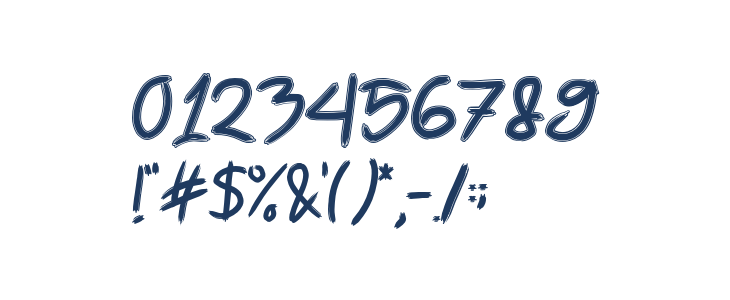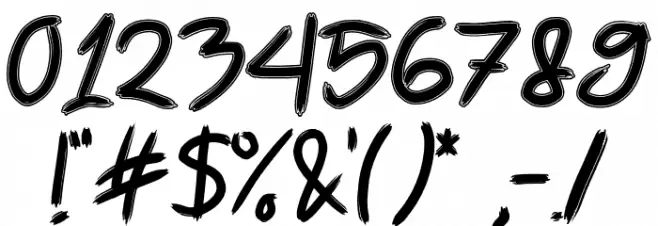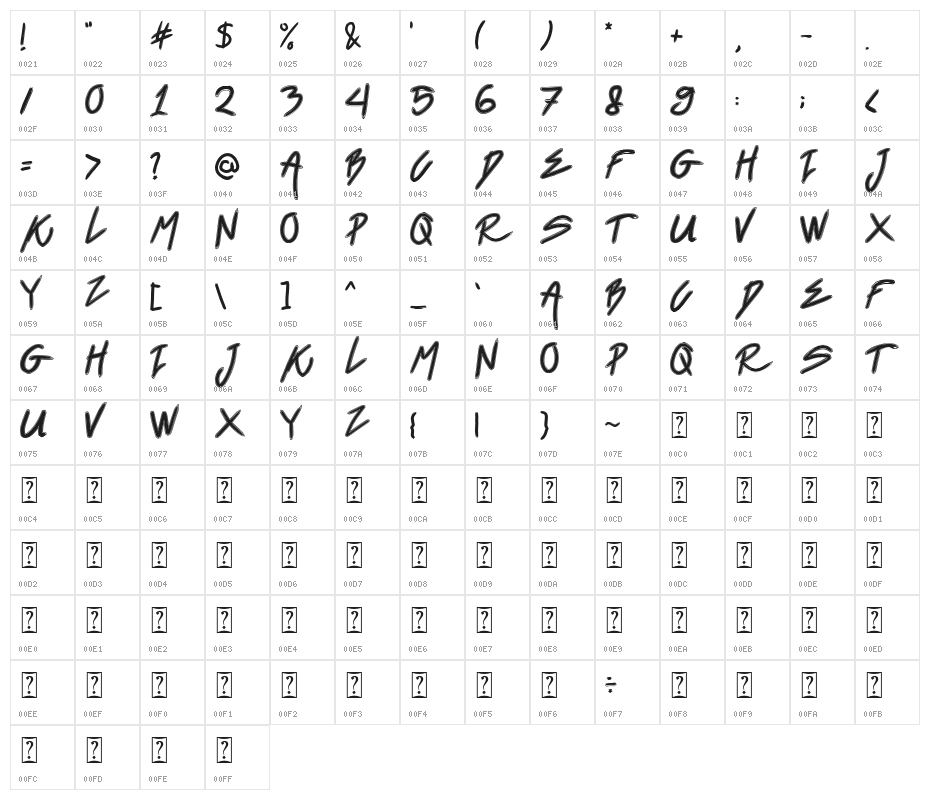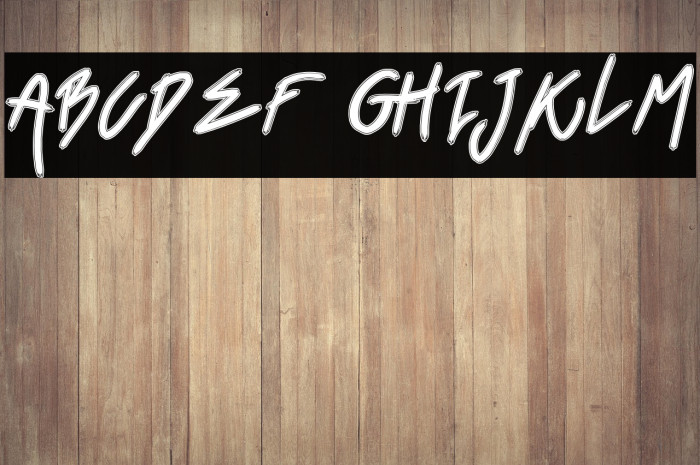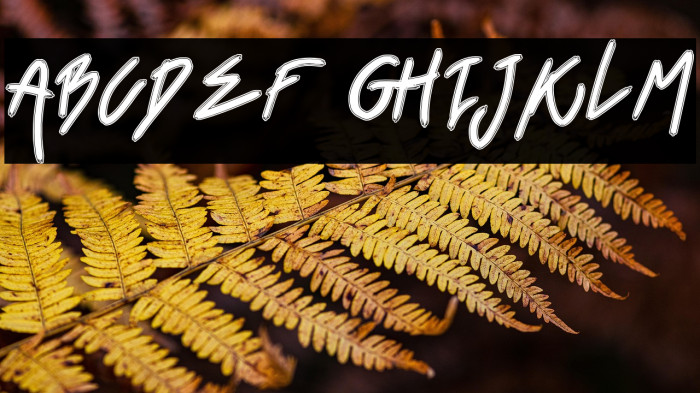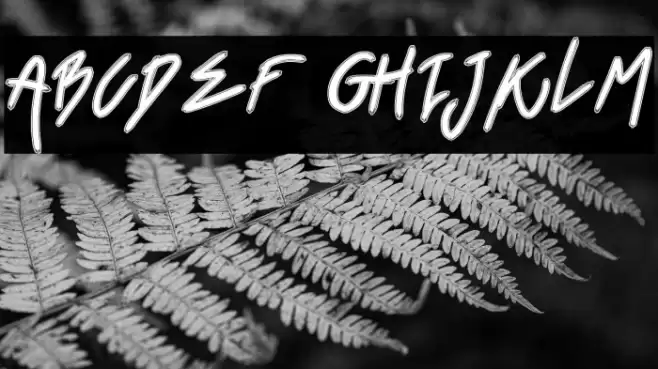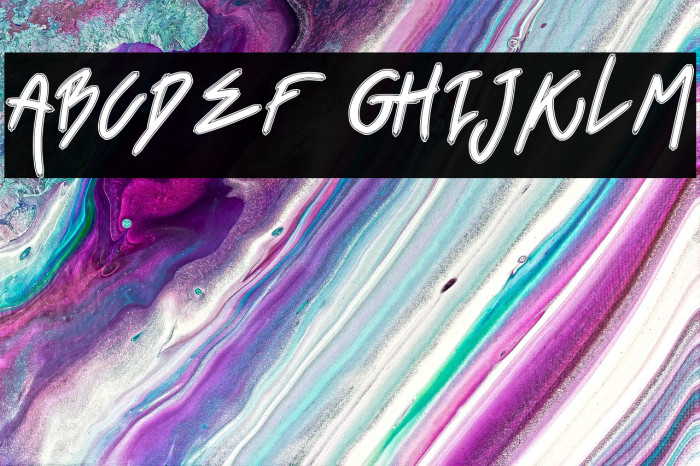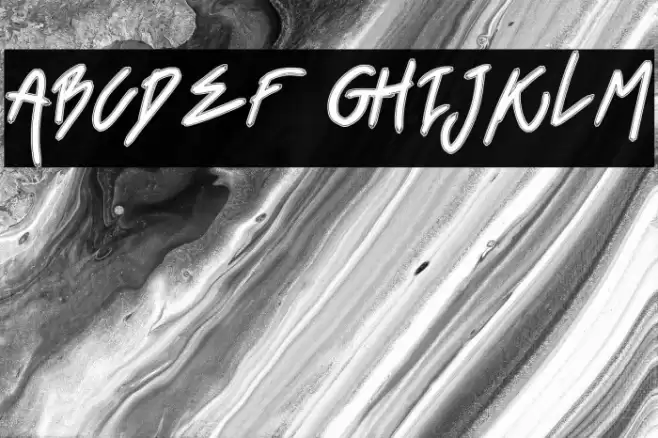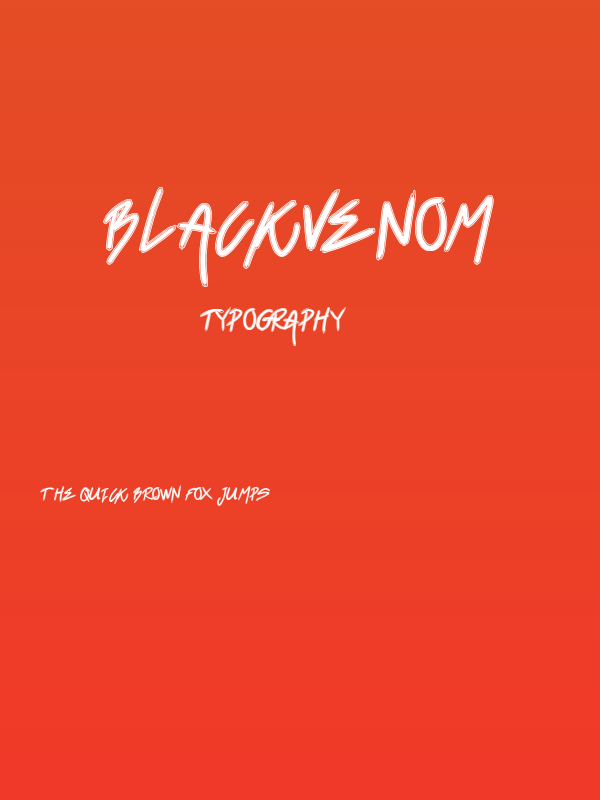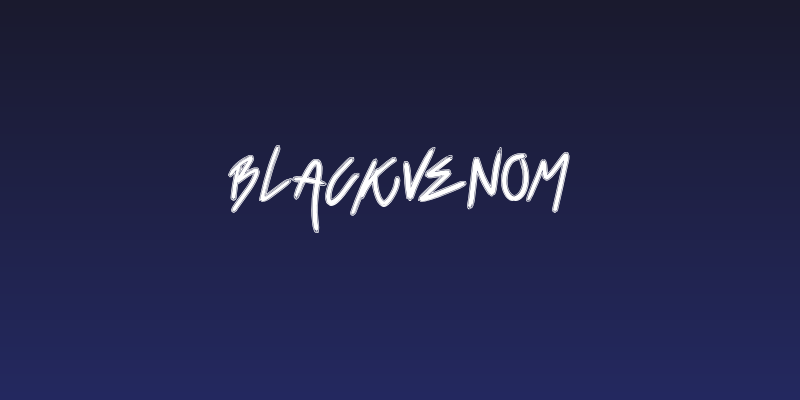
BlackVenom Font
BlackVenom Description
This dynamic and edgy font exudes a sense of energy and movement, characterized by its bold, brush-like strokes. The letters are crafted with a sharp, angular style that gives them a sense of urgency and intensity. The uppercase and lowercase letters maintain a consistent style, with a slightly slanted orientation that adds to the font's dynamic appearance. The numbers and special characters are equally expressive, maintaining the same bold and energetic style. This font is perfect for projects that require a strong, impactful visual presence, such as posters, logos, or branding materials. Its unique style makes it stand out, ensuring that any text set in this font will capture attention.
| Proposed Projects | Ideal for posters, logos, branding materials, and any project needing a strong visual impact. |